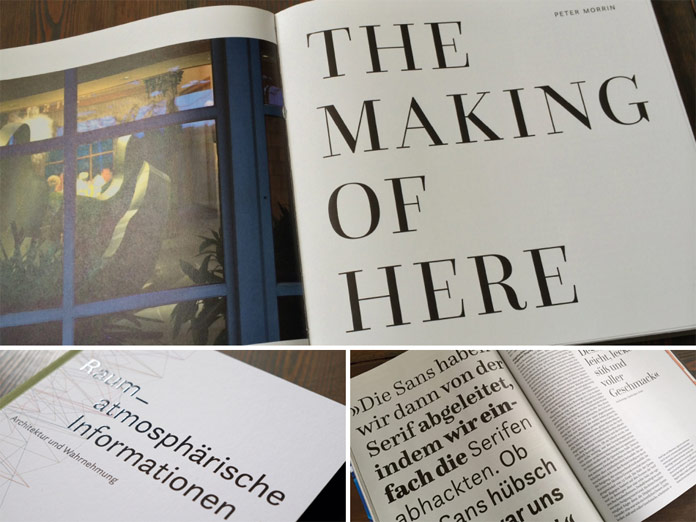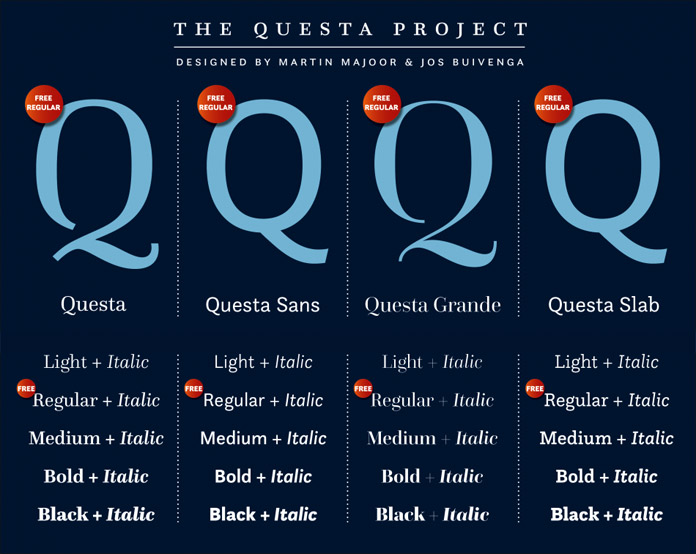
Questa Complete, a comprehensive font collection consisting of a sans serif, serif, and slab.
Published on June 8, 2016 by The Questa Project, this extensive font collection was designed by Jos Buivenga and Martin Majoor. Consisting of 4 families, Questa Complete comprises different styles including a sans serif, serif, and slab serif. All families are based on the same proportions. Please read more below or click on the following link to get further information.
Typographic features and options.
Each family is equipped with multiple weights and true Italic versions. Furthermore, the complete collection comes with 8 different OpenType features such as lining figures and standard ligatures. Due to its various weights, different styles, and excellent readability, the Questa fonts offer much typographic scope for both display and text use. The sans family can be combined easily with the serif and slab serif version. The extensive character set supports most Latin based languages. For additional information on all features and buying options, just follow the link below.